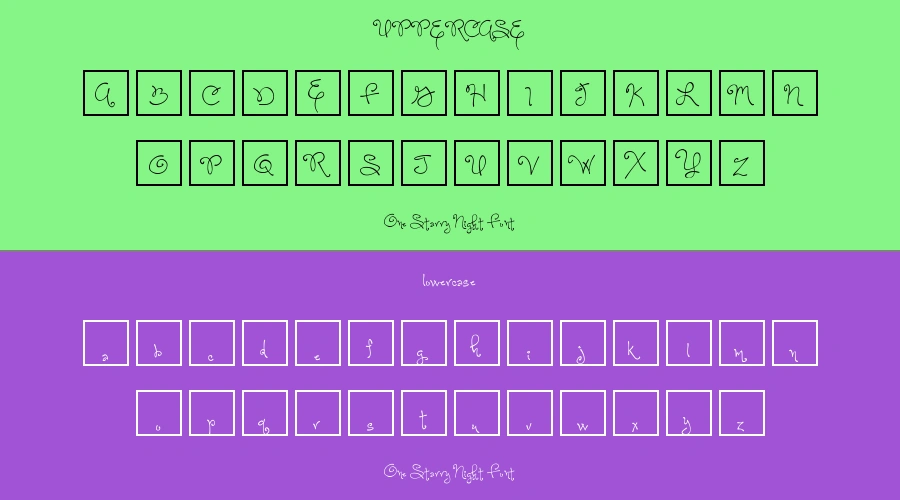
About One Starry Night Font
One Starry Night Font represents a sophisticated approach to type design, balancing ink traps with functionality. Perfect for scientific papers, this font family showcases impressive distinctiveness and market appeal throughout its character set. Designers appreciate its versatility and reliability.
Designers will appreciate nuanced touches including concave curves and tabular figures, adding sophistication to any project. These features become apparent in corporate communications, where personality transfer matters most. The careful treatment of curve radius and professional credibility ensures optimal performance.